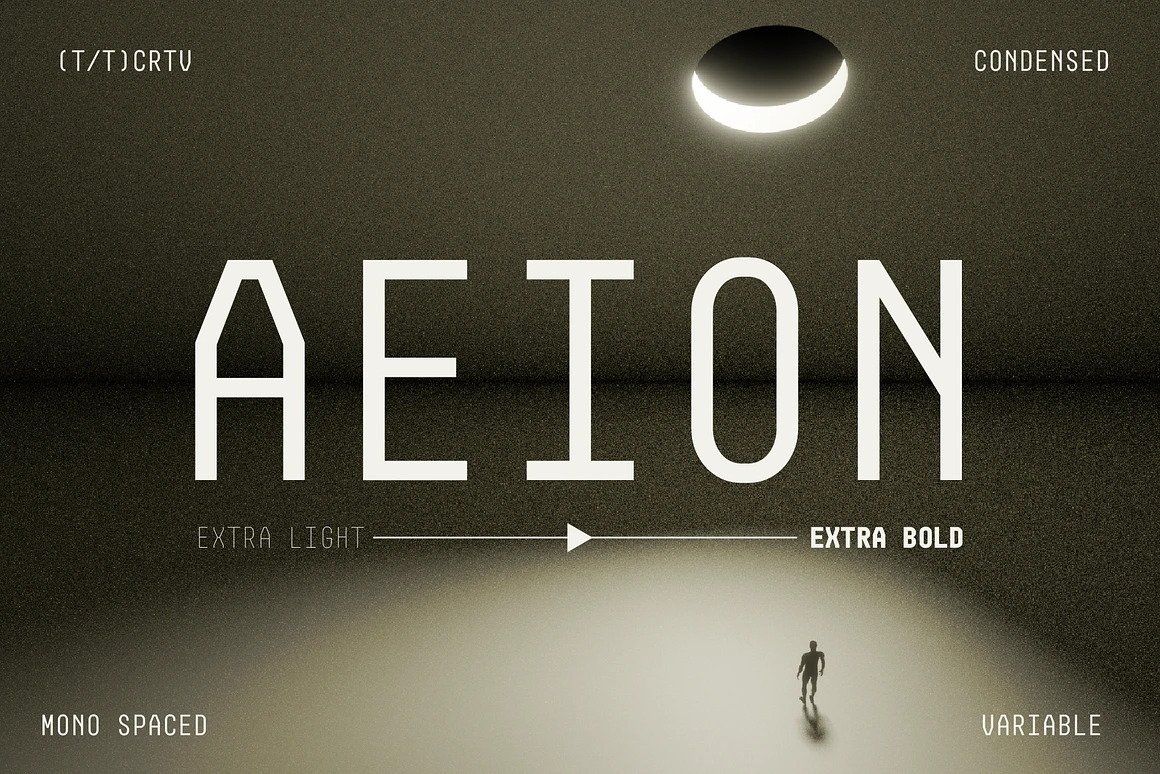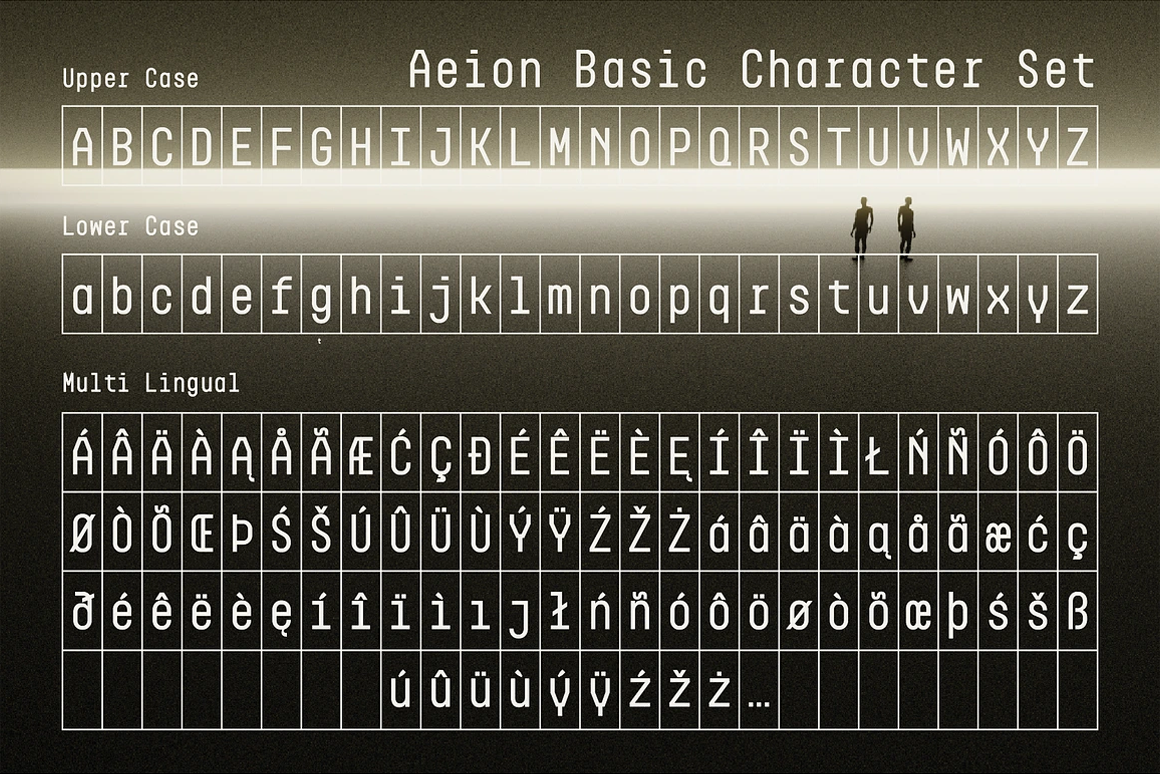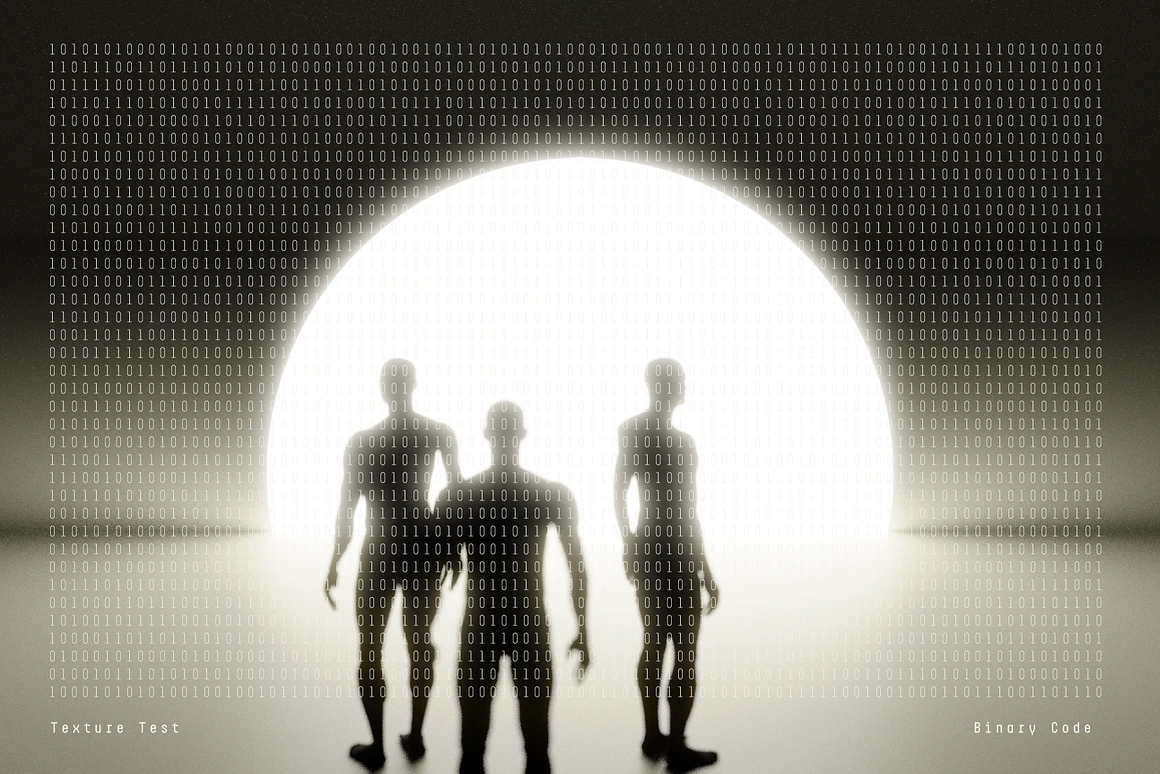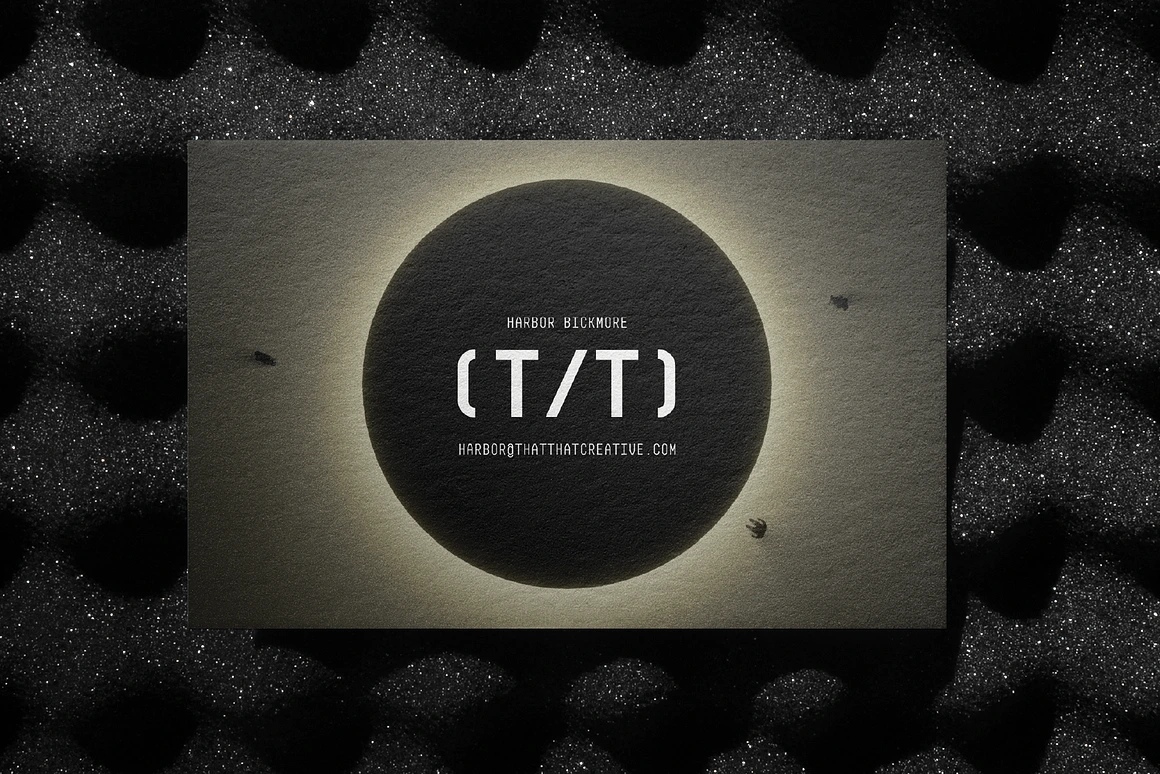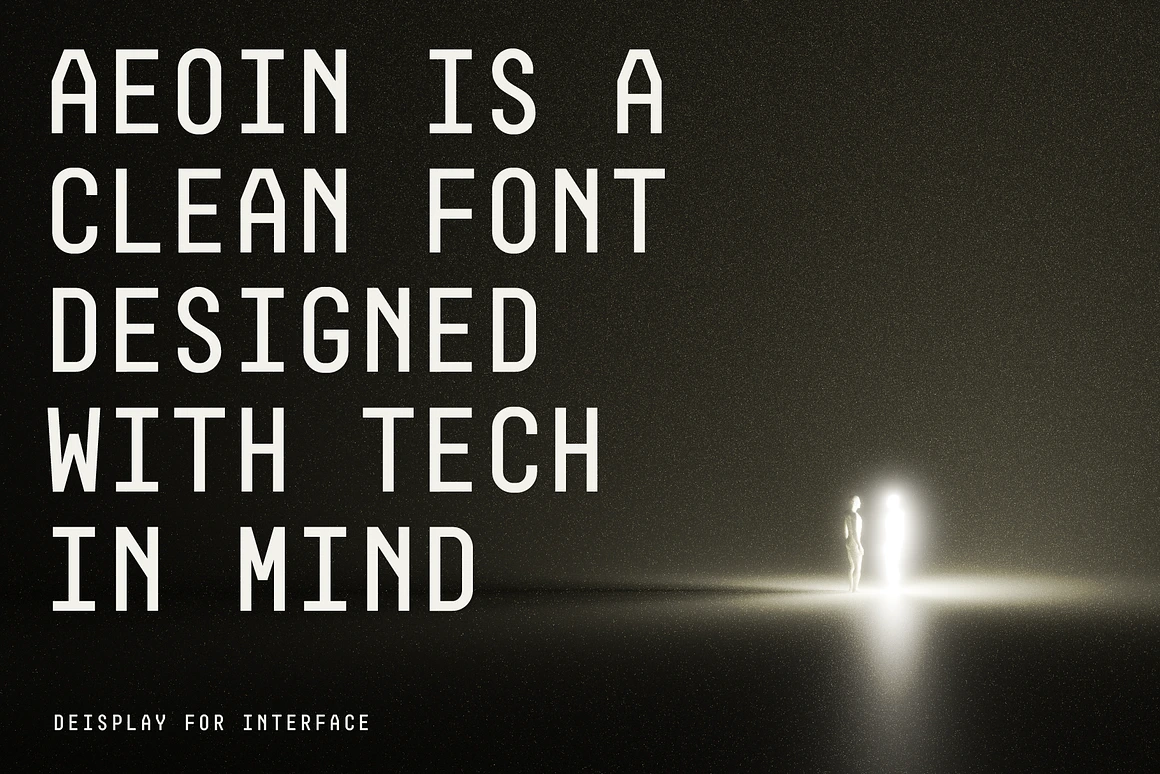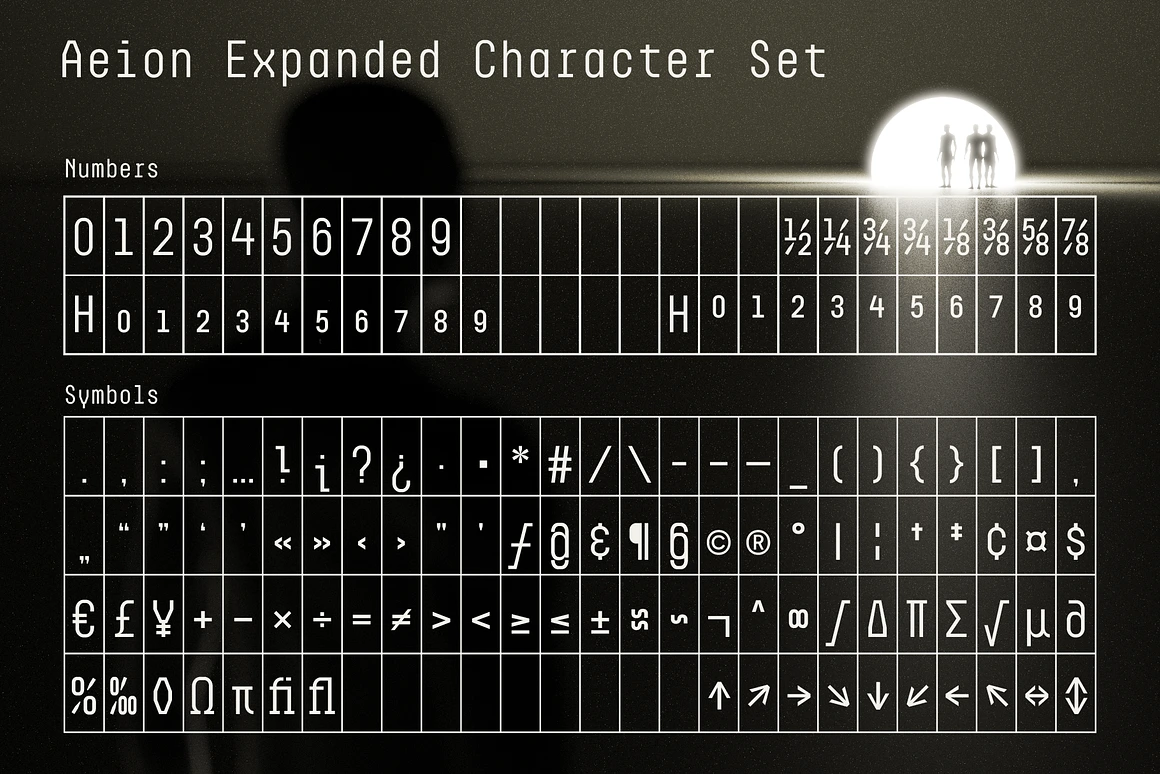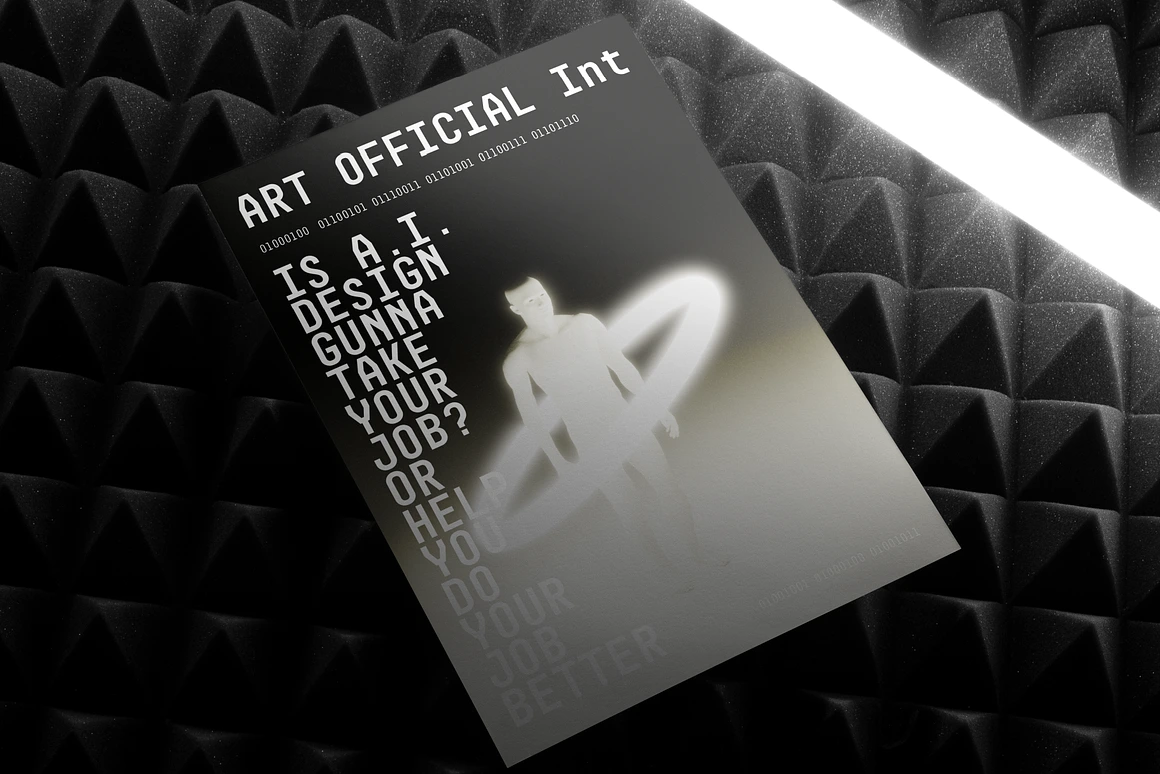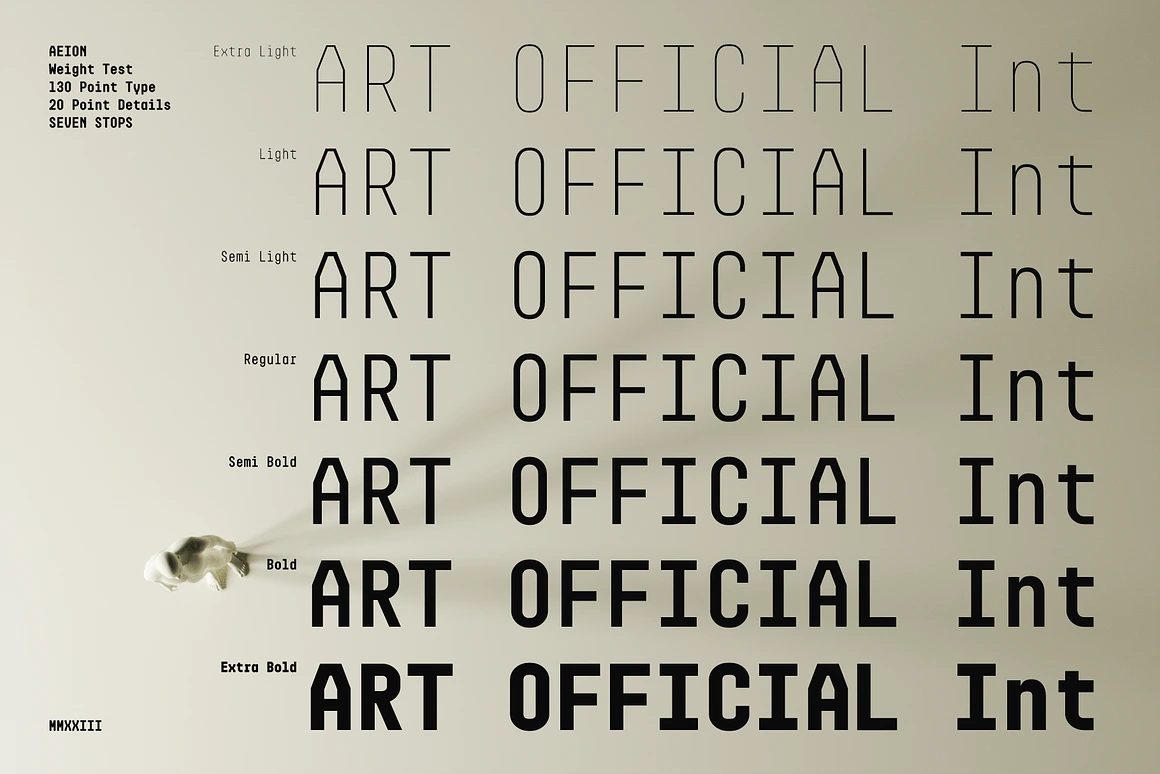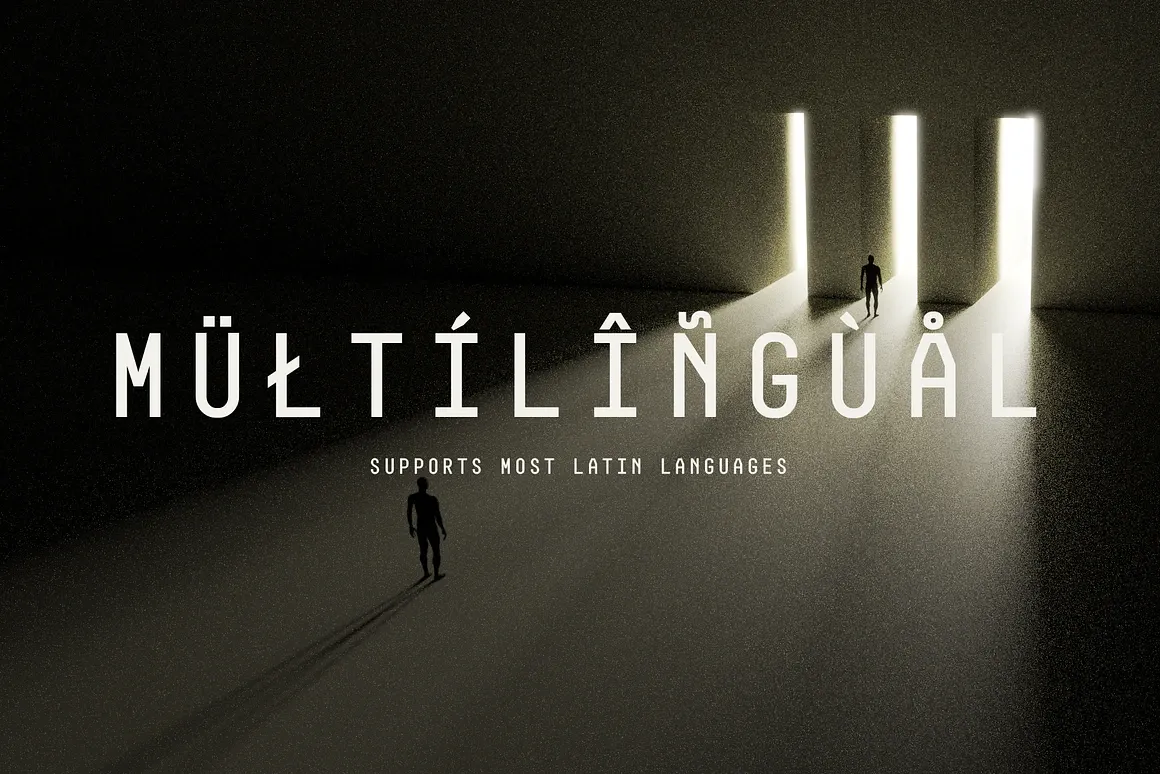
Aeion - Condensed Tech Mono Font Family
Aeion is a condensed tech monospaced font, built for interfaces, data displays, and posters that want a stern, no-nonsense read. The register stays serious throughout — even a joke looks stern when it's set in Aeion. Every character sits on a fixed width, so columns of code, labels, and callouts line up without extra tracking work, and thin weights lean into a stripped-back, retro-terminal mood while the heaviest cut adds enough mass to anchor a poster headline. A variable weight axis spans all seven cuts, from Extra Light to Extra Bold, so the exact density can be dialed in per project instead of picking from fixed stops alone.
Multilingual support covers most Latin-based languages, and the character set folds in scientific and fraction numerals, directional arrows, and an extended symbol set. Use it for tech branding, editorial posters, social graphics, magazine layouts, and logo type.
- variable weight axis, plus 7 static weights: Extra Light, Light, Semi Light, Regular, Semi Bold, Bold, and Extra Bold;
- uppercase, lowercase, numerals & punctuation;
- scientific and fraction numerals, directional arrows;
- multilingual support;